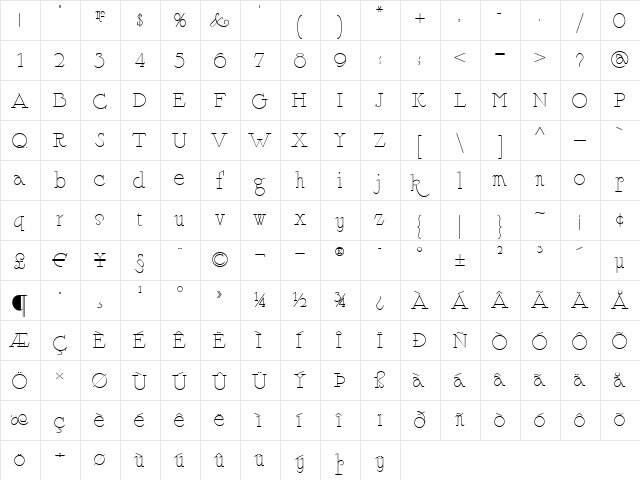
Whg Simpatico NF Regular
Design Context for Whg Simpatico NF Typeface
Whg Simpatico NF is a composed and adaptable typeface that performs quietly and consistently across a wide range of design contexts.